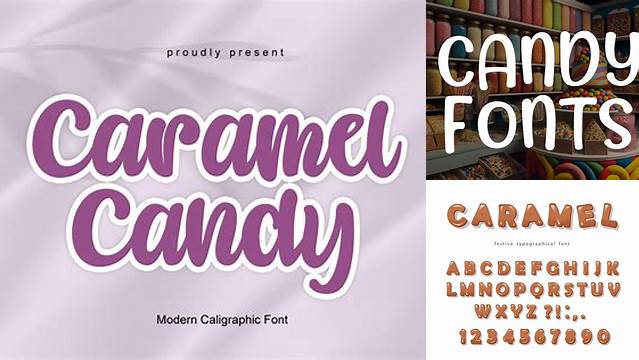
Free Caramel Candy Font Downloads: Sweet Design Treats
Hey guys! Are you looking to add a touch of sweetness and fun to your design projects? Look no further than caramel candy fonts! These fonts, inspired by the delicious and gooey texture of caramel candies, can bring a playful and whimsical vibe to your creations. Whether you're designing a logo, creating social media graphics, or working on a branding project, a caramel candy font can be the perfect way to grab attention and leave a lasting impression.
What is a Caramel Candy Font?
Before we dive into where you can find these delightful fonts, let's first understand what exactly a caramel candy font is. Think of the smooth, flowing, and slightly irregular shapes of melted caramel. That's the essence of these fonts! They often feature rounded edges, playful curves, and a slightly whimsical character that evokes a sense of fun and indulgence. Imagine the lettering on a vintage candy wrapper or the signage of a charming ice cream parlor – that's the kind of aesthetic we're talking about.
Caramel candy fonts aren't just about aesthetics; they're about creating a feeling. They can instantly transport your audience to a world of sweet treats and happy memories. This makes them particularly effective for projects related to food, children's products, and anything that aims to evoke a sense of joy and nostalgia. The versatility of these fonts also shines through – from bold and chunky styles perfect for headlines to more delicate and script-like versions ideal for body text, there's a caramel candy font to suit a wide range of design needs.
But what truly sets these fonts apart is their ability to add personality to a design. In a world saturated with generic typography, a caramel candy font can be a breath of fresh air, a unique element that makes your project stand out from the crowd. The key is to use them judiciously, balancing their playful nature with the overall tone and message of your design. When used correctly, a caramel candy font can be the secret ingredient that transforms a good design into a great one, leaving a sweet taste in the minds of your audience.
Where to Find Free Caramel Candy Fonts
FontSpace is another popular platform for free fonts. Like Dafont, it offers a wide variety of options and clear licensing information. You can use the search bar to look for keywords like "sweet," "rounded," or "playful" to narrow down your search. Remember to preview the fonts and try them out in your design software before committing to a specific one. A little experimentation can go a long way in finding the perfect caramel candy font for your project. Lastly, don't underestimate the power of creative market places that often have freebies sections with fonts that may fit your needs. Regularly checking these sections can lead to discovering unique and high-quality caramel candy fonts that others may have missed.
Tips for Using Caramel Candy Fonts
So, you've found the perfect caramel candy font – now what? Using these fonts effectively is key to achieving the desired impact. Here are a few tips to keep in mind:
- Consider the context: Caramel candy fonts are best suited for projects that are playful, fun, or related to food and sweets. Using them in a serious or corporate context might feel out of place.
- Pair them wisely: Don't overuse caramel candy fonts. Pairing them with a more neutral and legible font for body text can create a balanced and visually appealing design. Think of it like adding a sprinkle of sweetness to a solid foundation.
- Use them sparingly: A little goes a long way! Using a caramel candy font for a headline or a logo can be effective, but using it for the entire website might be overwhelming. Sometimes, the sweetest things are best enjoyed in moderation.
- Pay attention to legibility: While these fonts are fun, ensure they're still easy to read. Avoid using them in small sizes or against busy backgrounds. Legibility is paramount, no matter how sweet the font is.
Caramel candy fonts are a fantastic way to add a touch of sweetness and fun to your designs. With their playful curves and whimsical character, they can bring a unique and memorable element to your projects. Remember to consider the context, pair them wisely, and always double-check licensing agreements before using them. So go ahead, explore the world of caramel candy fonts and let your creativity flow! They can be the secret ingredient in transforming your projects from ordinary to extraordinarily sweet. And remember, design should be fun and expressive. These fonts let you sprinkle a little extra joy into your work, making the creative process all the more enjoyable for both you and your audience.